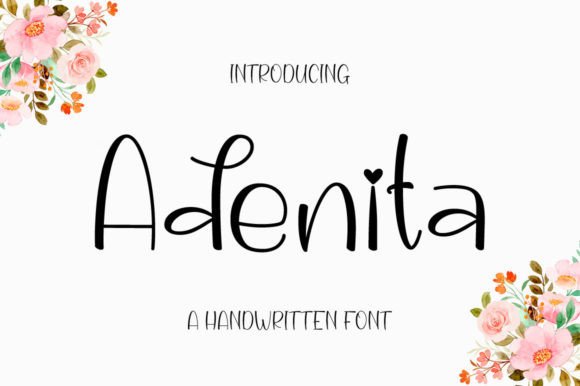
The Ultimate Guide to Adenita Font: Elevate Your Designs with a Personal Touch
I’ll never forget the time I was working on a wedding invitation project, and my client asked for a font that was both elegant and playful. I scoured the internet, trying out font after font, but nothing seemed quite right. That was until I stumbled upon Adenita Font. With its unique blend of sophistication and whimsy, it instantly captured the essence of the wedding celebration. In this article, I’ll share my experience with Adenita Font, its features, and how to make the most of it in your designs.
Adenita Font: The First Impression
Adenita Font is a fun and smart-looking handwritten font that can instantly elevate your designs. Its ravishing appearance makes it perfect for invitations, thank you cards, quotes, greeting cards, logos, business cards, and every other design that needs a customized touch.
What I Love About Adenita Font
• ✨ Unique and eye-catching design that’s sure to grab attention
• 💃 Versatile and adaptable to various design styles and themes
• 📚 Extensive character set, including OpenType features and glyphs
While Adenita Font is an excellent choice for many designs, there are a few things to keep in mind:
• ⚠️ May not be suitable for very formal or traditional designs
• 🤔 Some users may find the font a bit too ornate or decorative
Adenita Font was designed with the intention of creating a unique and eye-catching handwritten font that could be used for a variety of design projects. The designer aimed to create a font that was both elegant and playful, with a touch of sophistication. The result is a font that’s perfect for designs that need a personalized touch.
Q: What type of designs is Adenita Font best suited for?
Adenita Font is perfect for designs that need a personalized touch, such as invitations, thank you cards, quotes, greeting cards, logos, and business cards.
Q: Is Adenita Font suitable for body text?
While Adenita Font is highly legible, it may not be the best choice for body text due to its decorative nature. It’s better suited for headlines, titles, and short paragraphs.